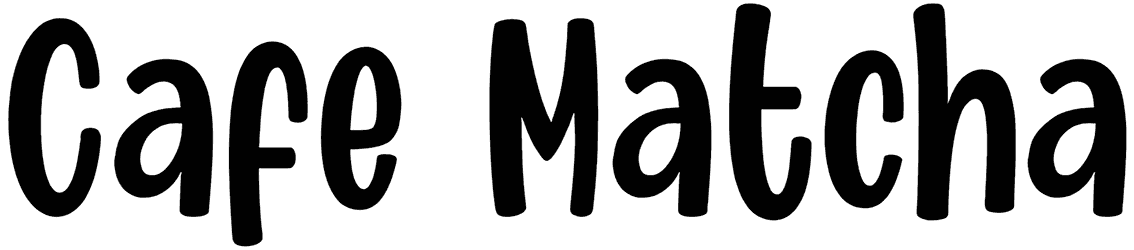
Cafe Matcha Font
Making your graphics ideas into reality demands a happy, fancy font to capture the sight of many audiences, especially youngsters. Cafe Matcha, a rounded cartoon font, is what distinguishes your writing design from others and communicates amicably with all of the onlookers.
The exciting and chunky arrangement makes it snazzy for creating any cartoon titles, comic books, mugs, banners, magazines, and more.